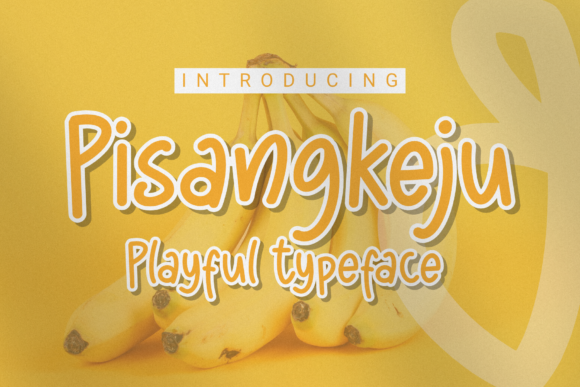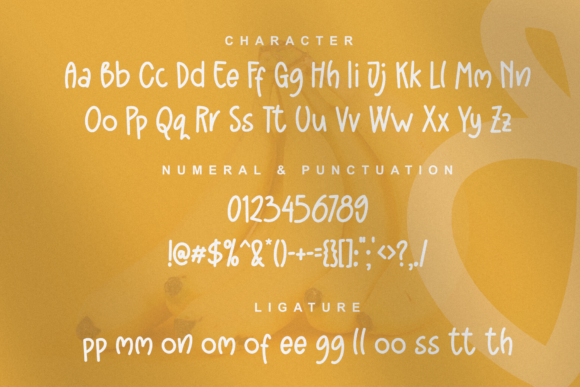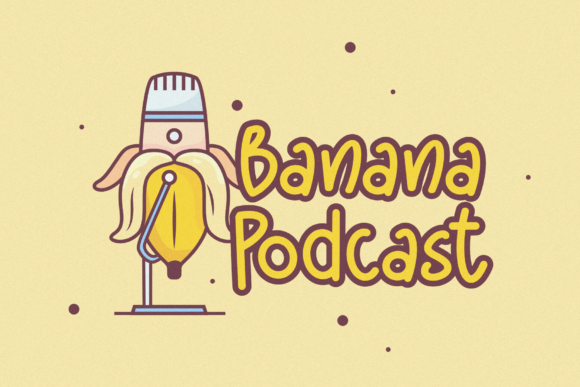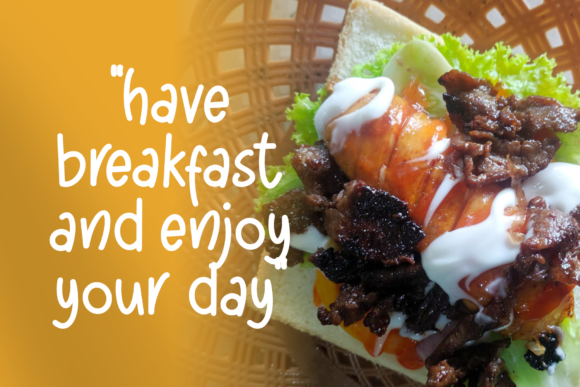
Pisangkeju Font: A Cute, Playful Typeface for Social Media Design
About the Pisangkeju Font
Experience the unique personality of Pisangkeju Font, a font designed for impact. Pisangkeju – Playful Typeface is a casual font made for fun and informal designs that will look perfect with the projects you make. It is perfect for designs, logos, social media, brands, content, advertisements, product designs, quotes, product packaging, headers, posters, merchandise, and other designs.
Pisangkeju’s playful character makes it ideal for headlines, short-form text in branding materials, social media graphics, and packaging design where a fun, approachable feel is desired. It works exceptionally well for projects targeting a younger demographic or those with a lighthearted, informal brand identity. Avoid using it for body text or large blocks of text; its informal nature makes extended reading difficult.
Consider pairing Pisangkeju with a clean sans-serif like Open Sans for a balanced contrast or a more geometric sans-serif like Futura for a modern, sophisticated feel. For a touch of elegance, a thin, classic serif like Garamond could create a beautiful juxtaposition. Avoid pairing with other highly decorative or script fonts, as this might create visual clutter.
The font’s overall personality is best described as cheerful and approachable, lending itself to brands and projects that communicate joy and informality. Its casual nature, however, limits its suitability for applications requiring a more refined or serious aesthetic.
Pisangkeju Font Usage Examples
Pisangkeju Font Example